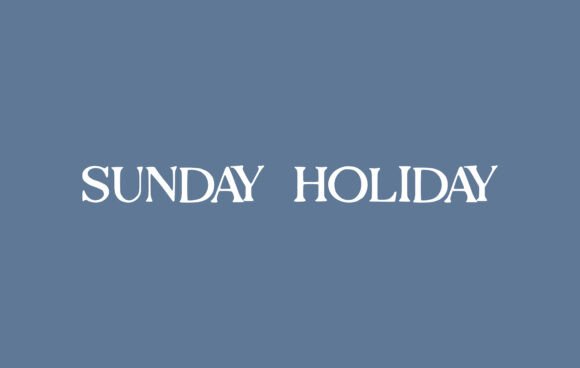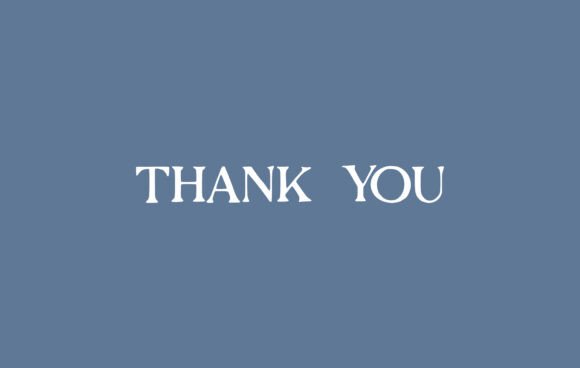
Introduction to Pompom Font
Have you ever found yourself in the midst of a creative project, pouring your heart and soul into it, only to feel like something is missing? That’s where the perfect font can make all the difference. Whether you’re designing a magazine headline, a wedding invitation, or a social media post, the right font can elevate your work from good to great.
Enter the Pompom Font, a stunning and authentic font that adds a touch of romance to any design. With its legible and elegant style, this font is perfect for designers looking to add a high-quality touch to their creative projects. And the best part? It’s available for free download, making it an invaluable design resource for anyone looking to take their work to the next level.
Key Features of Pompom Font
- High-quality design: The Pompom Font is designed with precision and care, making it a valuable resource for any creative project.
- Transparent background: This font allows for seamless integration with any background, giving designers the freedom to create unique and eye-catching designs.
- Scalable design: The Pompom Font is designed to be scalable, allowing designers to use it for various design projects, from small logos to large-scale graphics.
- Resolution-independent: The font is optimized for high-resolution displays, ensuring it looks great on any device, from desktop monitors to mobile screens.
- Perfect for creative projects: The Pompom Font is ideal for designers working on creative projects, such as branding, advertising, and editorial design.
Honest Review: Pompom Font
I recently stumbled upon the Pompom Font, and I must say it’s a delightful addition to my design resource library. As a designer, I’m always on the lookout for high-quality fonts that can elevate my creative projects. The Pompom Font does just that, with its playful and whimsical vibe that’s perfect for kids’ books, party invitations, or any other design project that needs a touch of fun.
One of the things that stood out to me about the Pompom Font is its transparent background, which makes it easy to work with and allows for seamless integration into any design. I also appreciate that it’s a free download, making it an accessible resource for designers of all levels.
- Playful and whimsical design style
- High-quality font that’s perfect for creative projects
- May not be suitable for formal or professional designs
- Some users may find the font too playful or distracting
Overall, I’m impressed with the Pompom Font and would definitely recommend it to fellow designers. While it may not be suitable for every project, it’s a valuable addition to any design resource library, especially for creative projects that need a touch of fun and whimsy. ✨
Getting the Most Out of Pompom Font
To get the most out of the Pompom Font, experiment with different font sizes, colors, and combinations. You can also use the font in conjunction with other design resources, such as graphics and shapes, to create a unique and eye-catching design.
The Pompom Font is a versatile design resource that can be used in a variety of creative projects, including social media graphics, party invitations, and children’s book illustrations. Its high-quality design and transparent background make it a great choice for any project that requires a fun and playful touch.